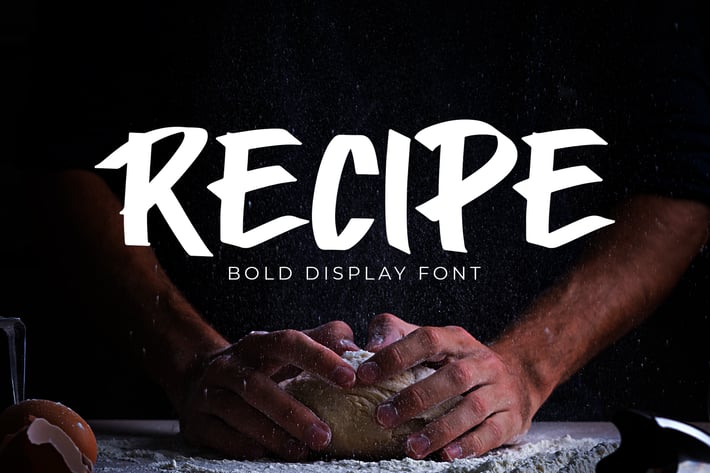
Recipe Bold Display Font
Recipe Bold Display Font is a handwritten display font with a brush style. This font perfect for branding projects, logo, T-shirt designs, social media posts, advertisements, product packaging, product designs, label, watermark, invitation, stationery, and any projects